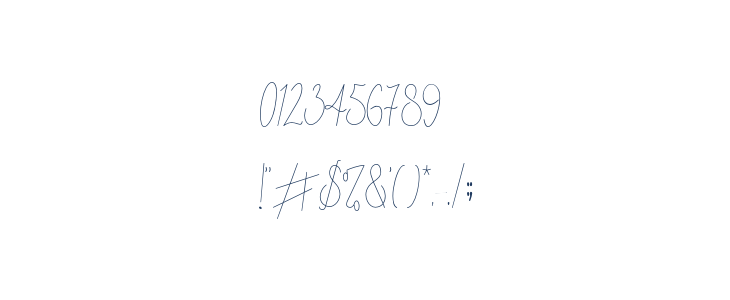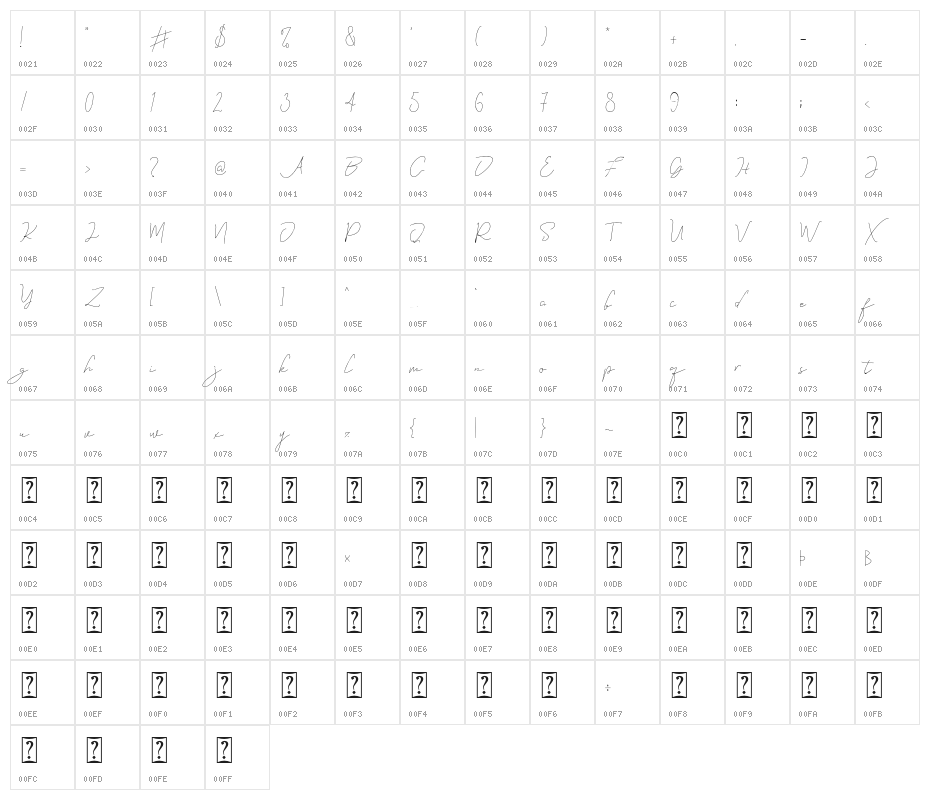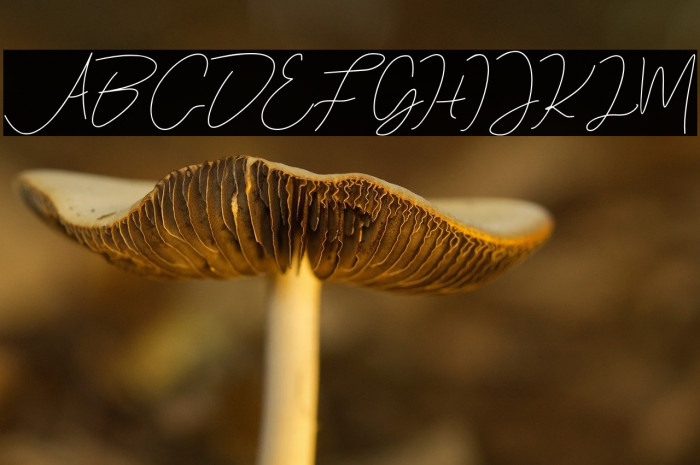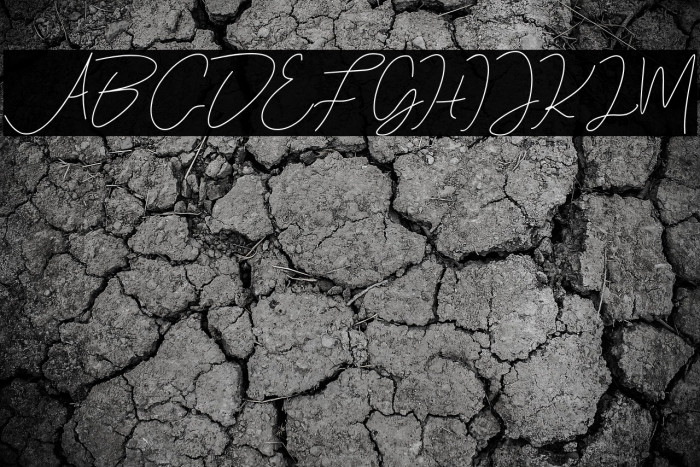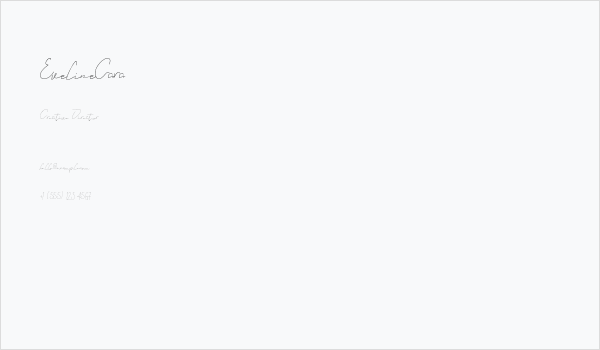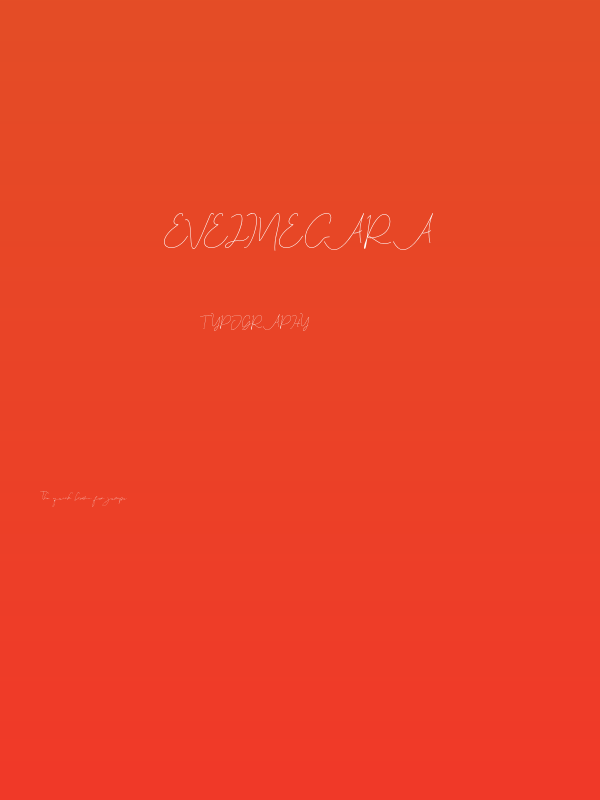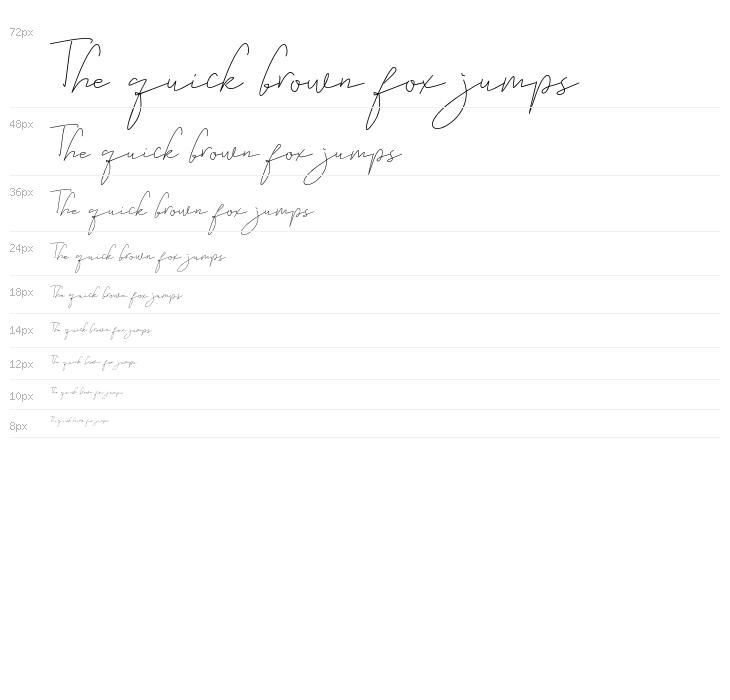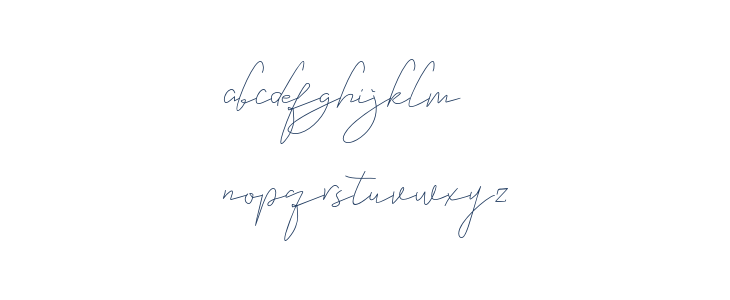
EvelineCara Font
EvelineCara Description
This elegant script font features a flowing, handwritten style with delicate, elongated strokes that convey a sense of sophistication and grace. The uppercase letters are tall and slightly slanted, while the lowercase letters maintain a consistent fluidity, enhancing the overall aesthetic. The numerals are designed with a similar elegance, ensuring a cohesive look across all characters. Special characters are thoughtfully integrated, maintaining the font's refined appearance. This font is perfect for projects that require a touch of elegance and personal flair.